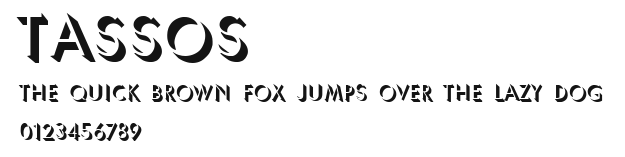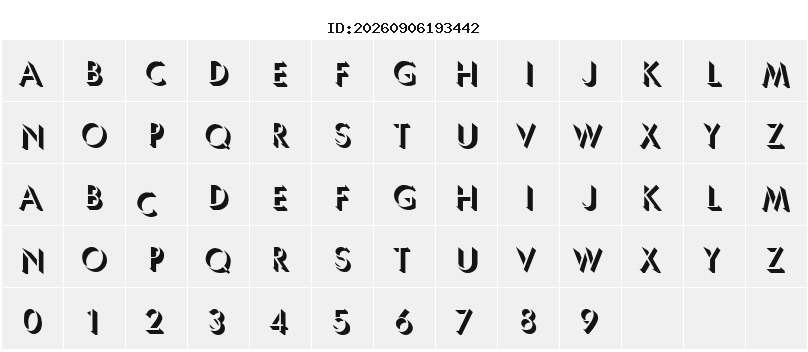
• Font Name: TASSOS
• Full Font Name: TASSOS Regular
About TASSOS.ttf
TASSOS.ttf is a modern, elegant sans-serif font designed for ultimate readability and visual harmony. Perfect for branding, headlines, web design, and print materials.